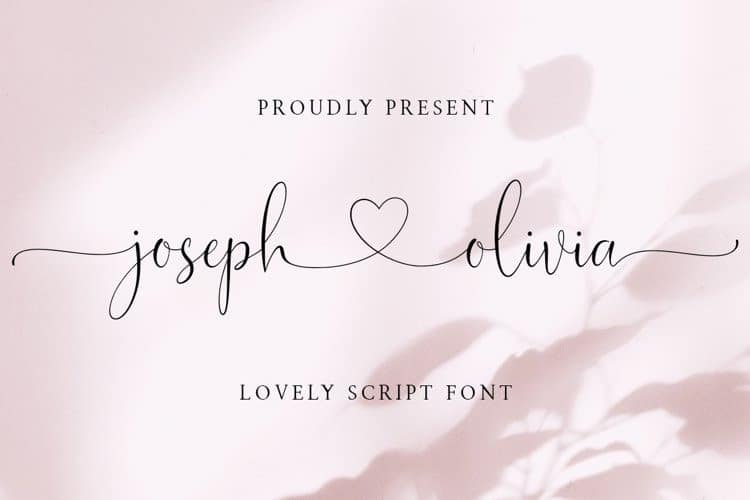
Joseph Olivia Calligraphy Font
Joseph Olivia Calligraphy Font a work that is purely a result of handwriting, has a natural characteristic. It’s designed and shared by Typesthetic Studio. And It’s a modern calligraphy font with handwritten, sophisticated flows. It is full of hearts and glyphs.
Joseph Olivia perfect for logos, wedding stationery, cards, gift designs, photography, watermark, product packaging and handwritten quotes. This font includes full set of uppercase and lowercase letters, multilingual symbols, numerals and punctuation and ligature. Also it includes heart connecting lowercase swashes, beginning and ending lowercase short swashes, beginning and ending lowercase heart long swashes.